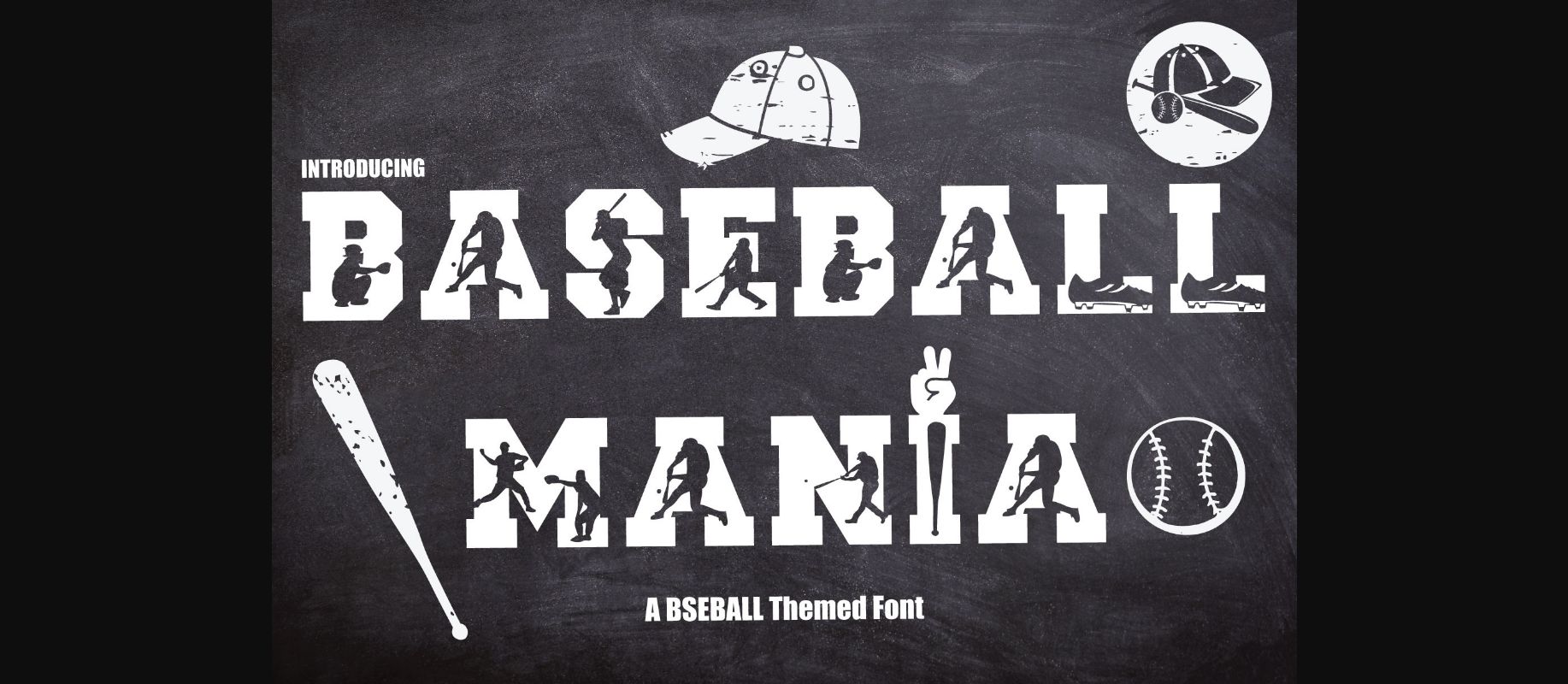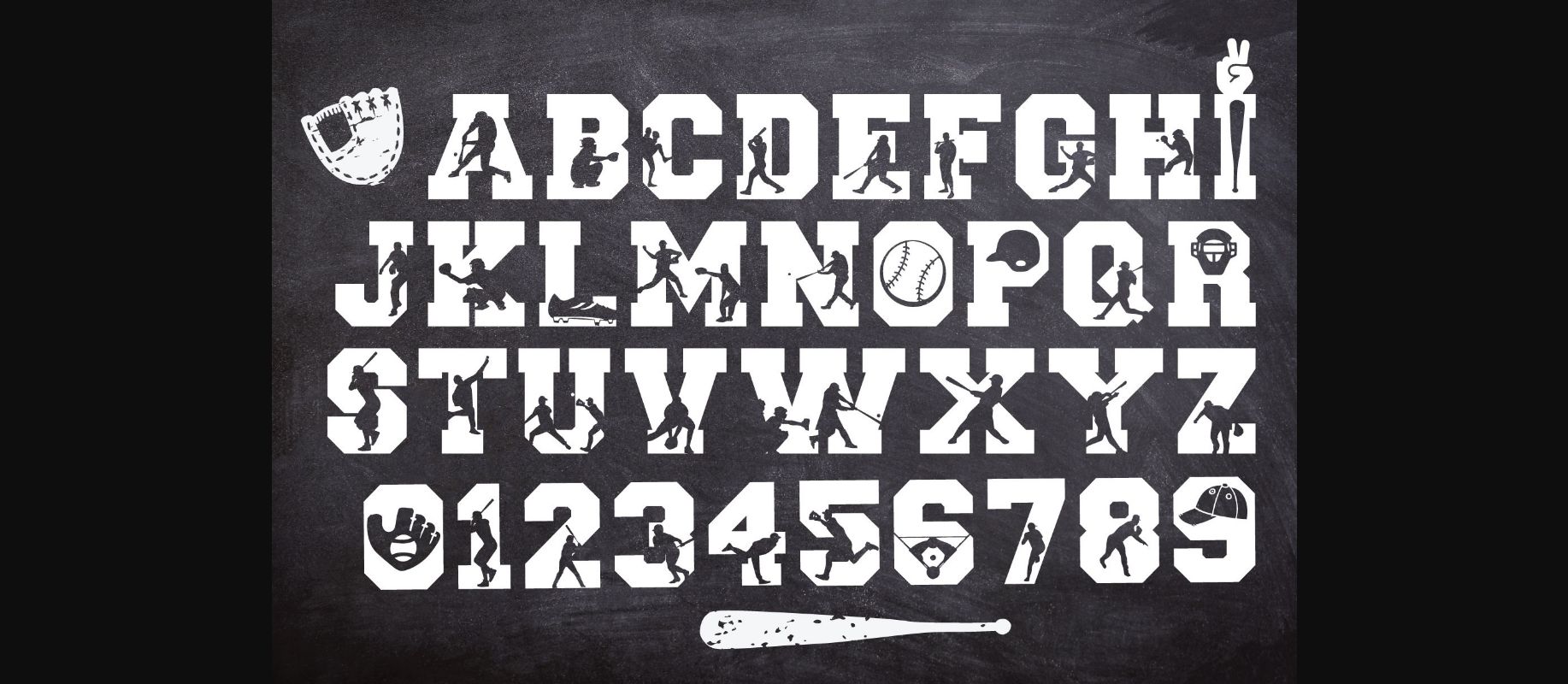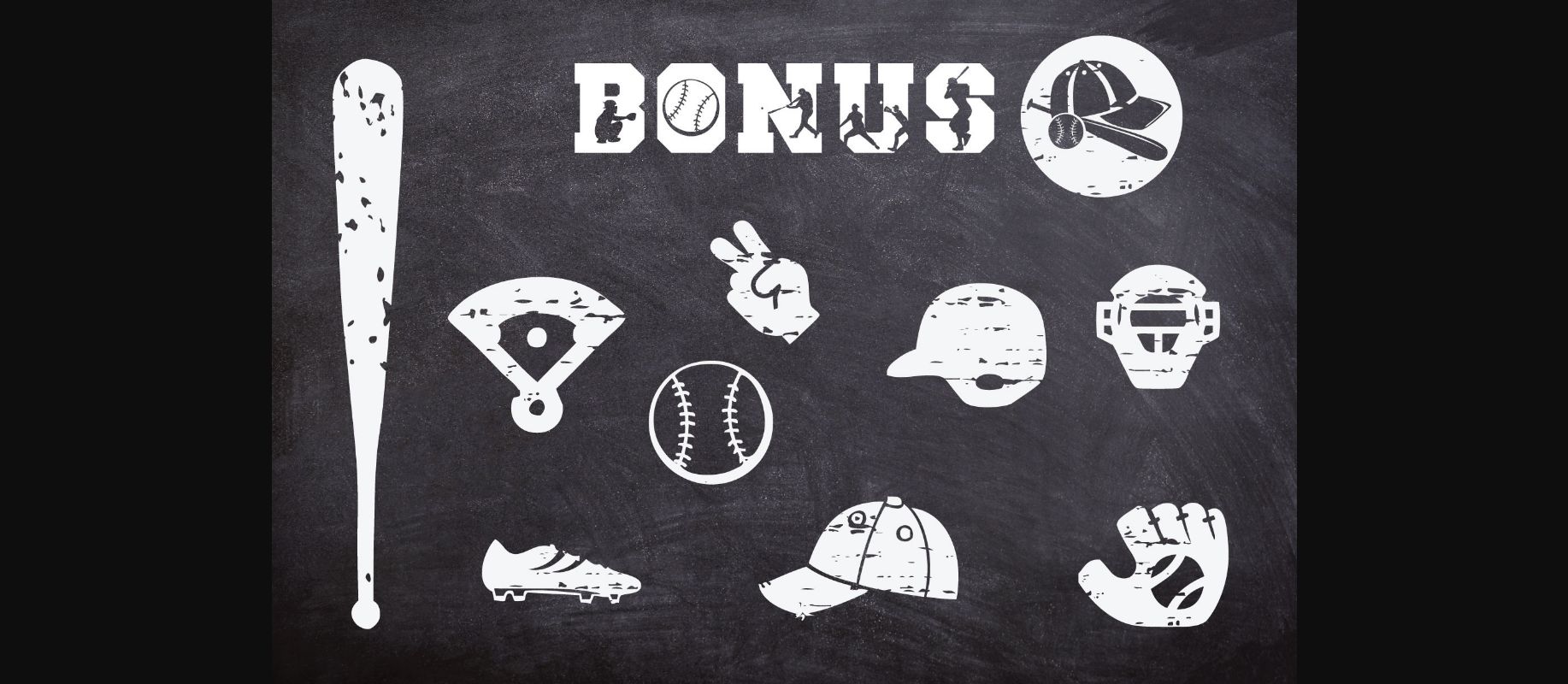
Baseball Mania Font
About Baseball Mania Font
Baseball Mania is a cool, bold and inspired decorative font. Add it to your baseball related designs and you will be astound by the results.